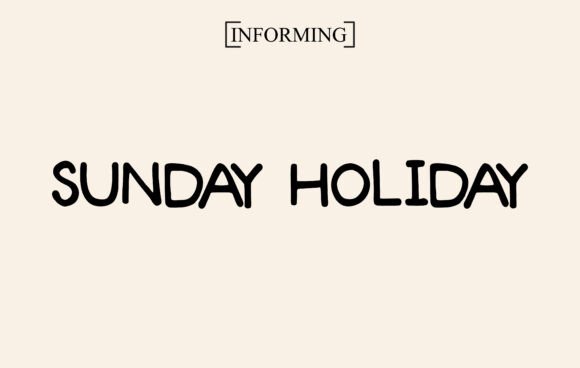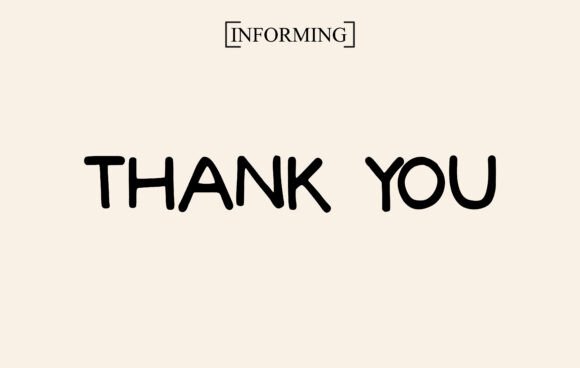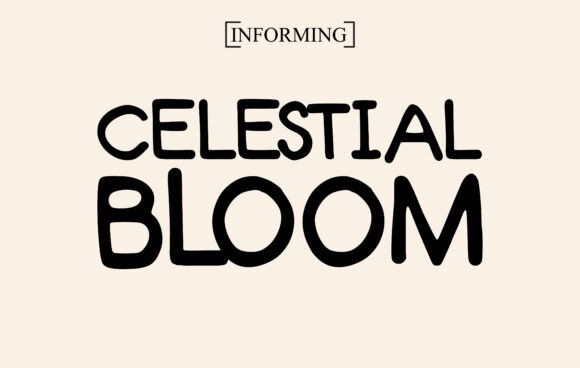
Celestial Bloom Font: Elevate Your Designs to New Heights
Are you tired of using the same old fonts in your designs? Look no further than the Celestial Bloom Font, a stunning typeface that is sure to take your creative ideas to new heights. This font is designed to be a true favorite among designers and crafters, and for good reason. Its unique blend of elegance and playfulness makes it perfect for a wide range of design projects.
Legible and Versatile
One of the standout features of the Celestial Bloom Font is its exceptional legibility. Whether you’re using it as a title or body text, this font is easy to read and looks great in a variety of contexts. This makes it a versatile choice for designers who need a font that can adapt to different design requirements. From magazine headlines to social media posts, the Celestial Bloom Font is a great choice for any project that requires a high level of readability.
Perfect for a Wide Range of Designs
The Celestial Bloom Font is a perfect choice for many different design projects. Here are just a few ideas to get you started:
• Magazine Headlines: Use the Celestial Bloom Font to create eye-catching headlines that grab readers’ attention.
• T-Shirts: Create custom t-shirts with the Celestial Bloom Font that’s sure to turn heads.
• Social Media: Use the Celestial Bloom Font to create engaging social media posts that stand out from the crowd.
• Branding: Establish your brand’s identity with the Celestial Bloom Font, perfect for logos, business cards, and more.
• Wedding Invitations: Add a touch of elegance to your wedding invitations with the Celestial Bloom Font.
• Cards: Create beautiful greeting cards for any occasion with the Celestial Bloom Font.
Why Choose the Celestial Bloom Font?
So why choose the Celestial Bloom Font over other fonts on the market? Here are just a few reasons:
• Unique Design: The Celestial Bloom Font has a unique design that’s sure to set your designs apart from the competition.
Tips for Using the Celestial Bloom Font
Here are a few tips for getting the most out of the Celestial Bloom Font:
• Experiment with Different Sizes: Try using the Celestial Bloom Font in different sizes to see how it looks in various contexts.
• Pair it with Other Fonts: Experiment with pairing the Celestial Bloom Font with other fonts to create a unique and interesting design.
• Use it in Different Colors: Try using the Celestial Bloom Font in different colors to see how it looks in various design contexts.
In conclusion, the Celestial Bloom Font is a stunning typeface that is sure to take your designs to new heights. Its unique blend of elegance and playfulness makes it perfect for a wide range of design projects, from magazine headlines to social media posts. With its exceptional legibility, high-quality design, and ease of use, this font is a must-have for any designer or crafter looking to elevate their designs.